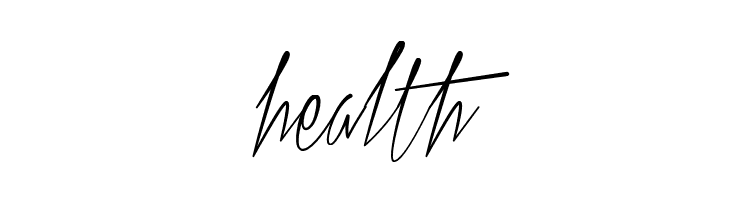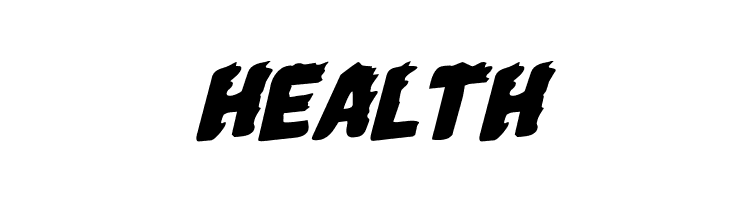
A bold, outlined font with angular, slanted characters for a dynamic look.
A dynamic, handwritten-style font with elongated, slanted characters and thin strokes.
A casual, handwritten font with fluid, slightly slanted characters.
A bold, dynamic script font with elegant slanted characters.
A bold, playful font with flowing, cursive-like strokes and a slightly slanted orientation.
A playful, bold handwritten font with rounded, slanted letterforms.
A modern serif font with elegant, slightly slanted letterforms and moderate stroke contrast.
A modern, light, and italic sans-serif font with elegant slanted characters.
A bold, slanted font with a rugged and dynamic style.